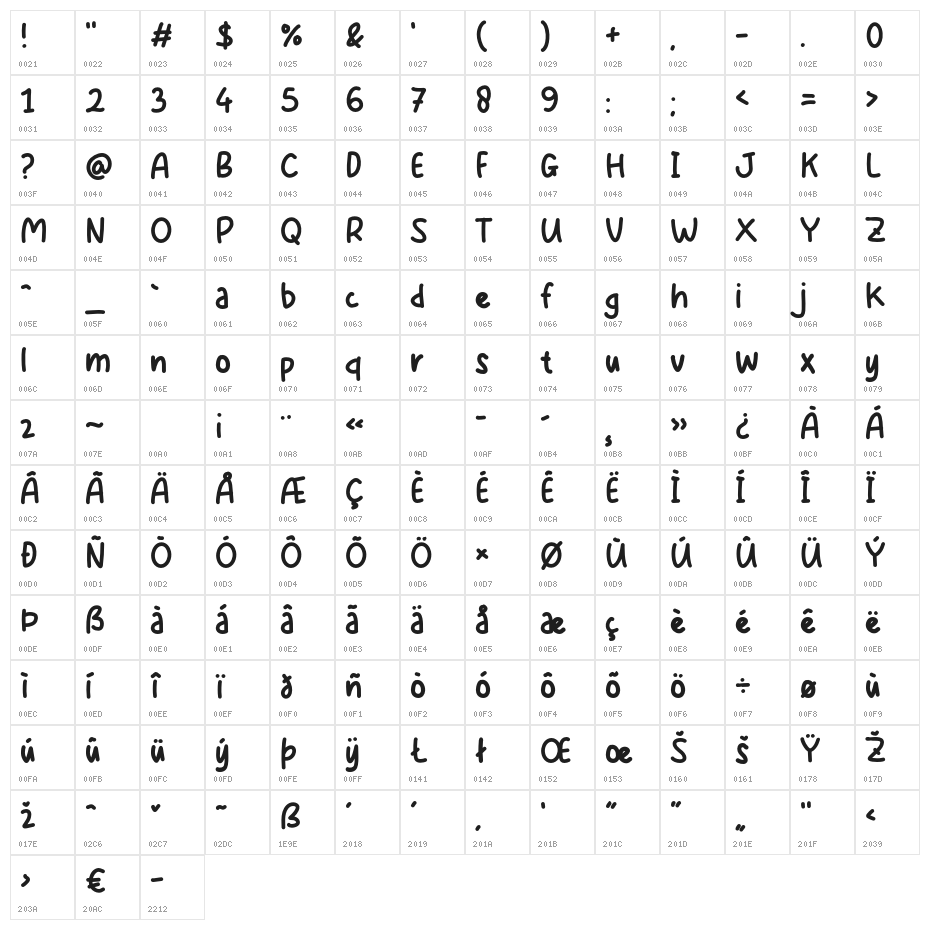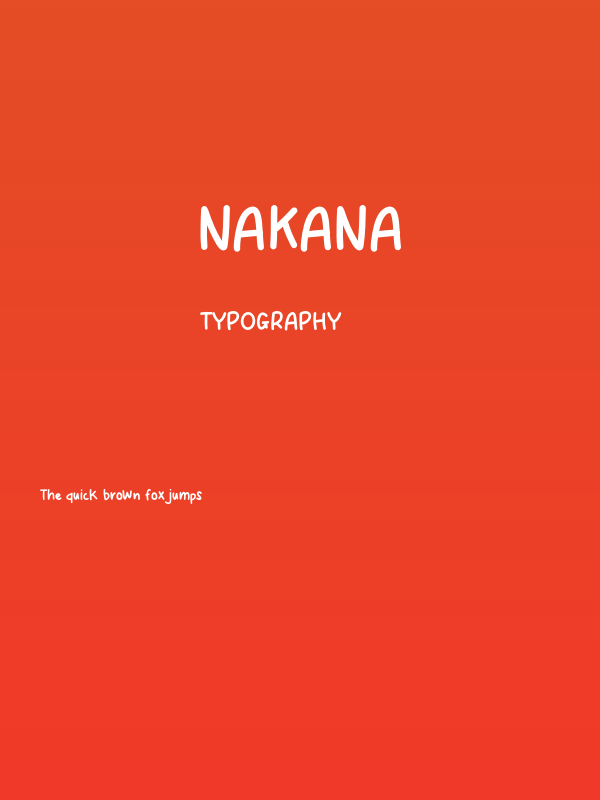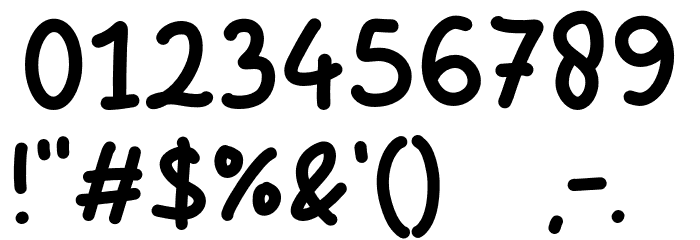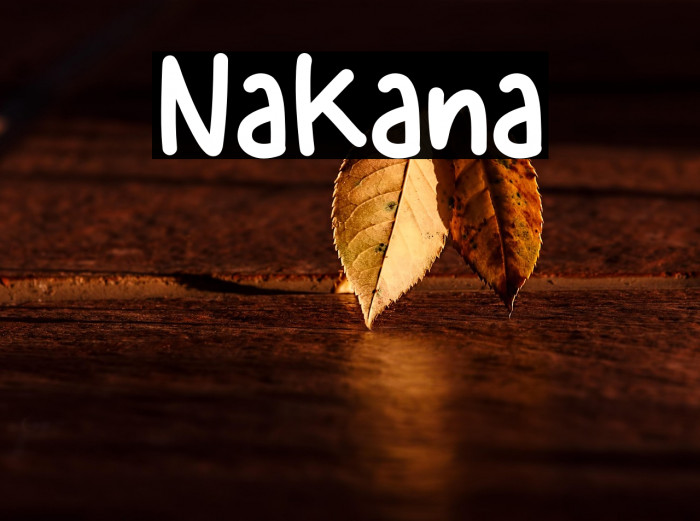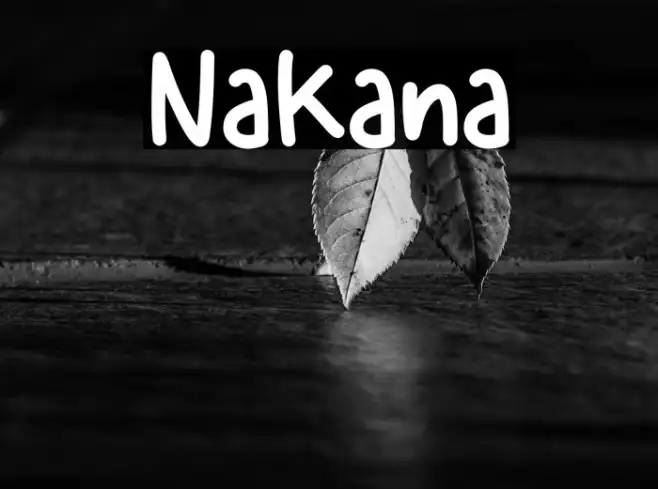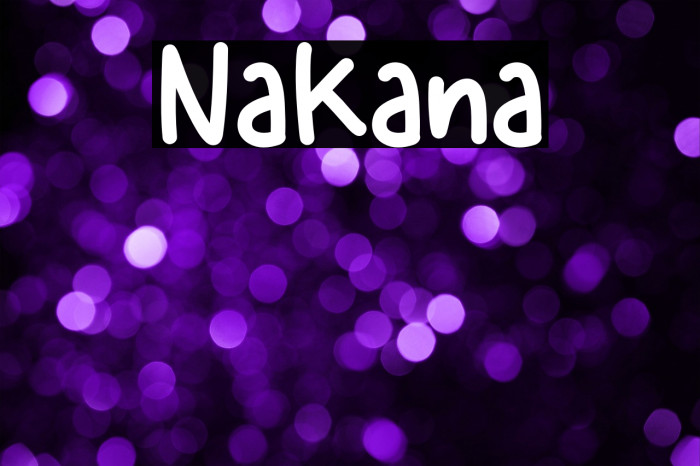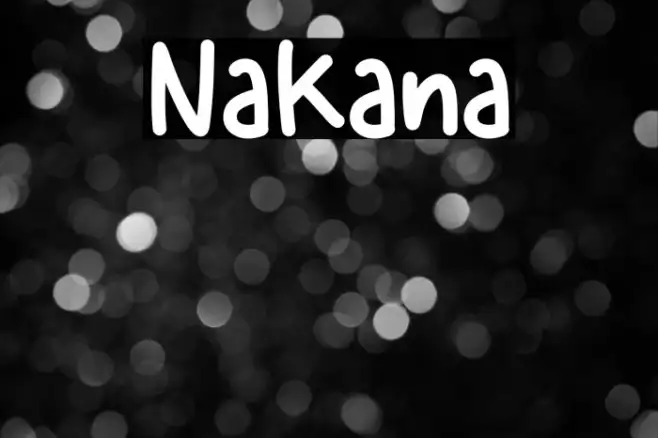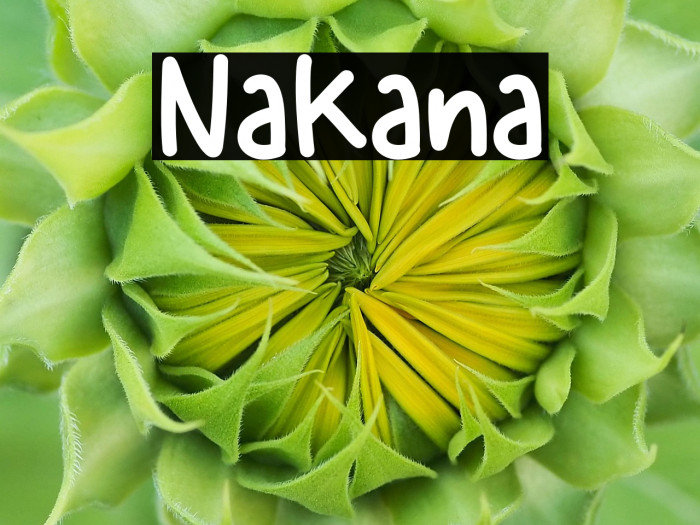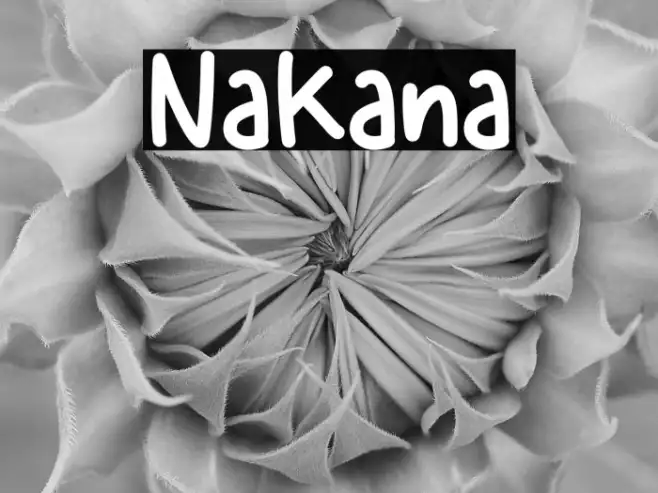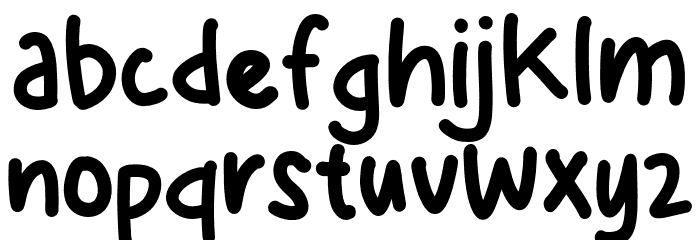
Nakana Font
Nakana Description
This playful and rounded font exudes a friendly and approachable vibe, characterized by its bold and slightly irregular strokes. The letters are crafted with a hand-drawn aesthetic, giving it a casual and informal feel. The uppercase and lowercase letters maintain a consistent style, with a slight tilt and varying stroke thickness that adds to its charm. The numerals and special characters follow the same design principles, ensuring a cohesive look across all glyphs. This font is perfect for projects that require a touch of whimsy and creativity.